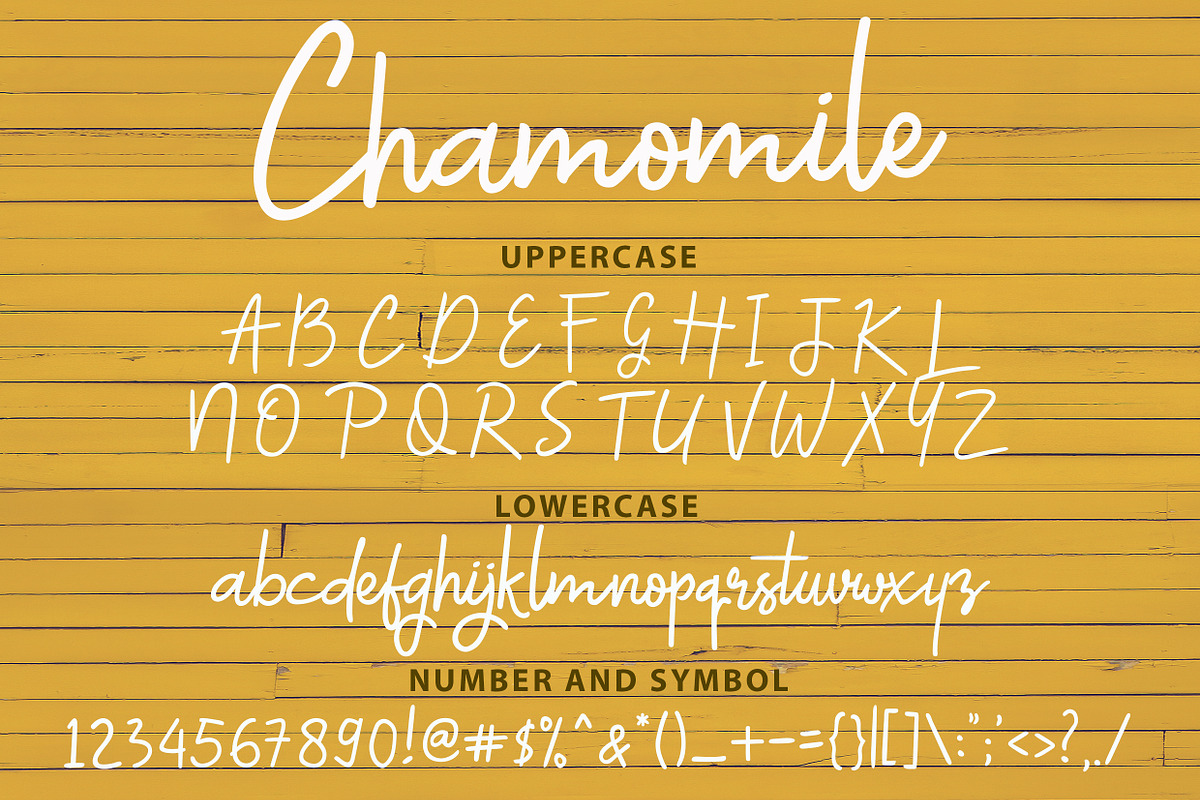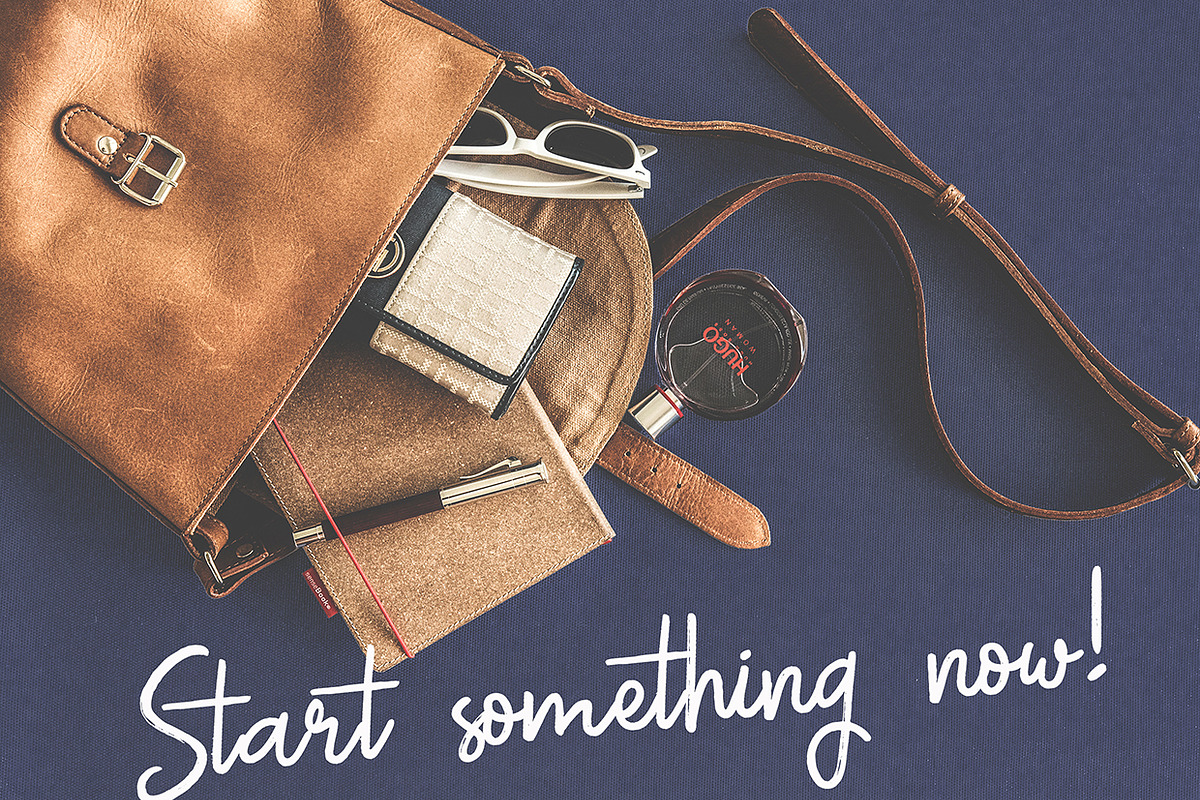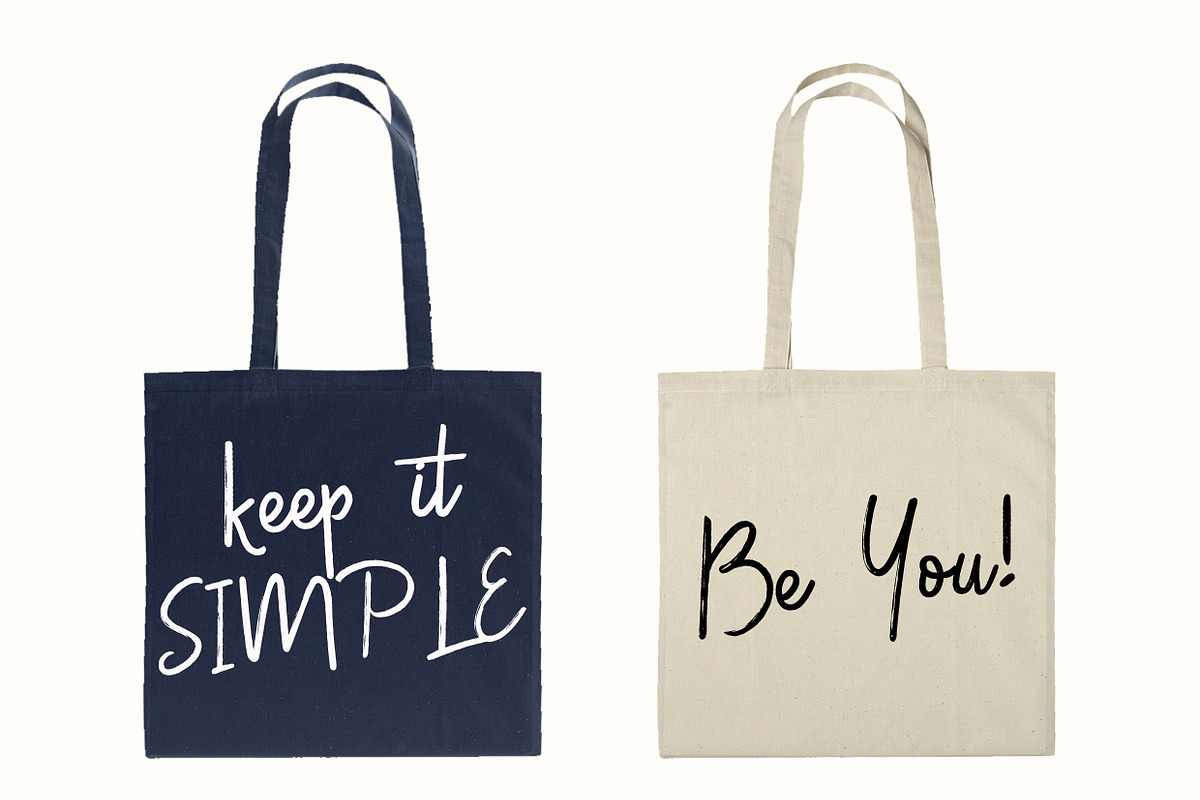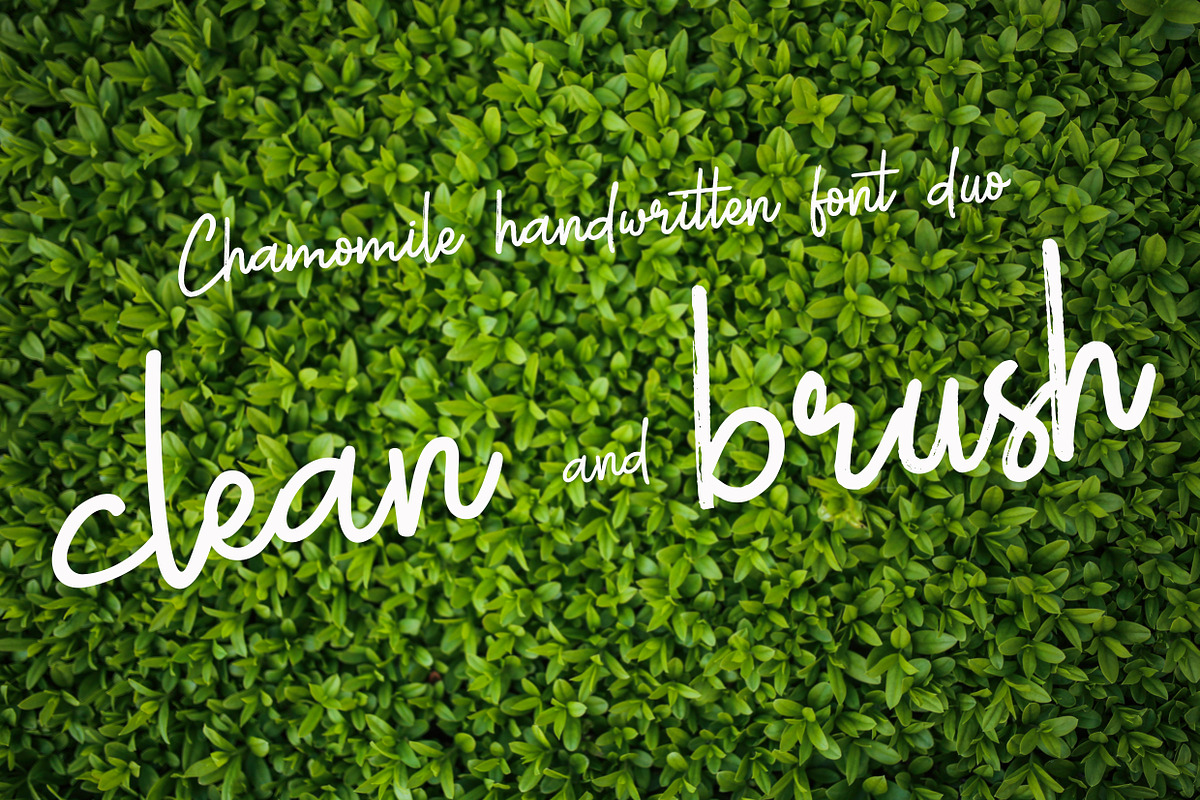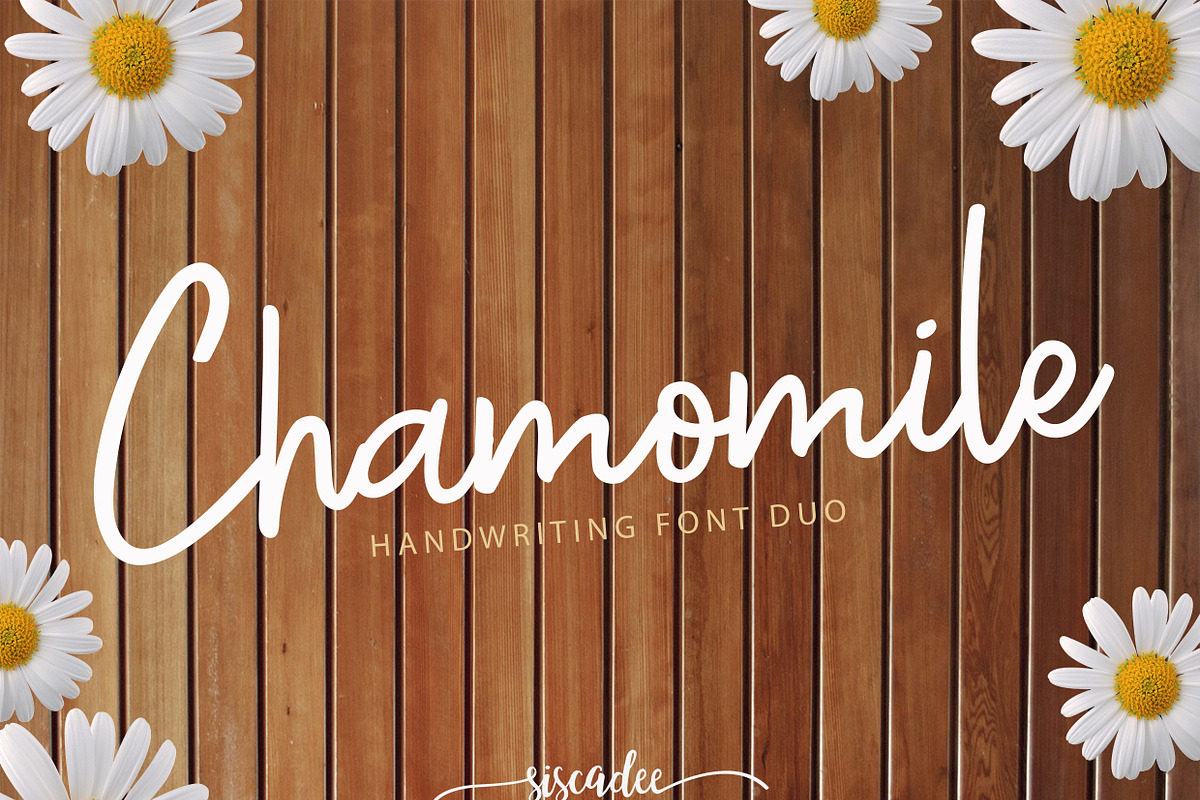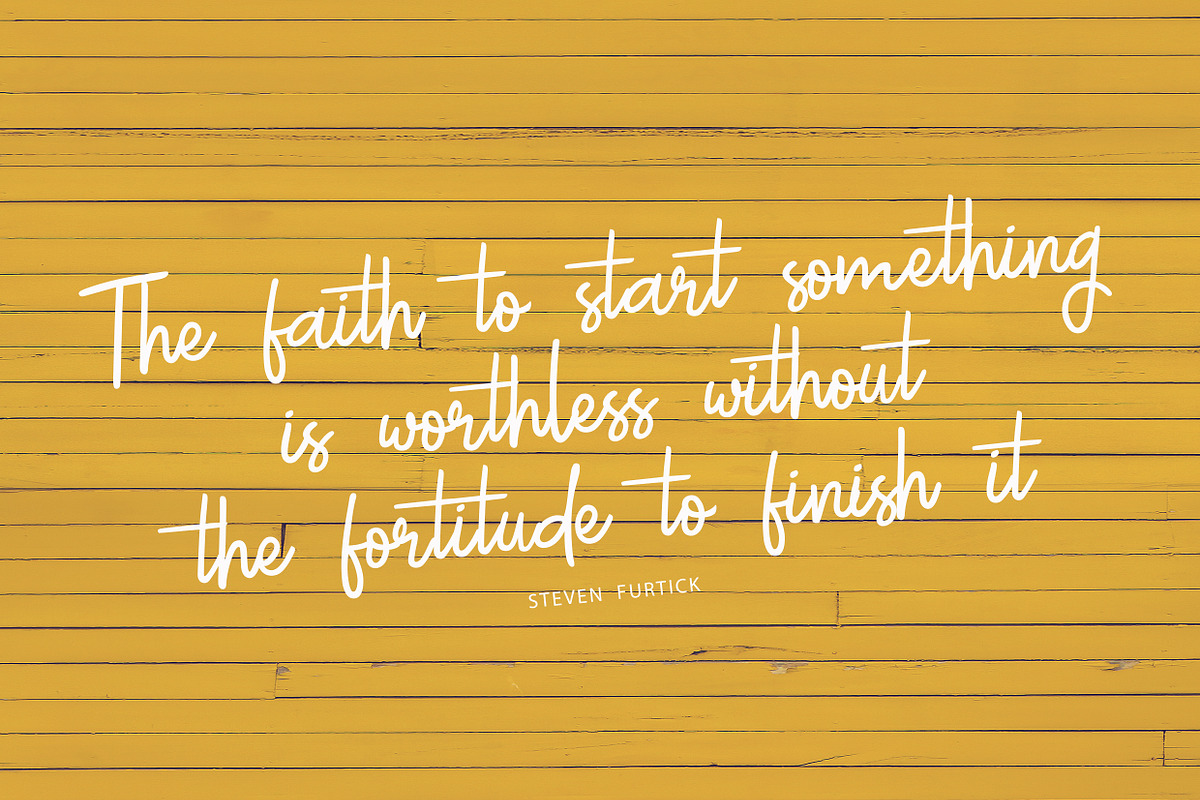
Chamomile Script Font
Meet Chamomile, handwriting font duo. Giving your design get personalized touch. Looking good on Logo, Quotes, and any "typography cravings" these days.
1. Chamomile - Clean handwriting font made with pen, containing uppercase, lowercase, number and symbol.
2. Chamomile Brush - Brush version of this handwriting font. Giving you the mild texture of a brush, with the exact set of the first font.